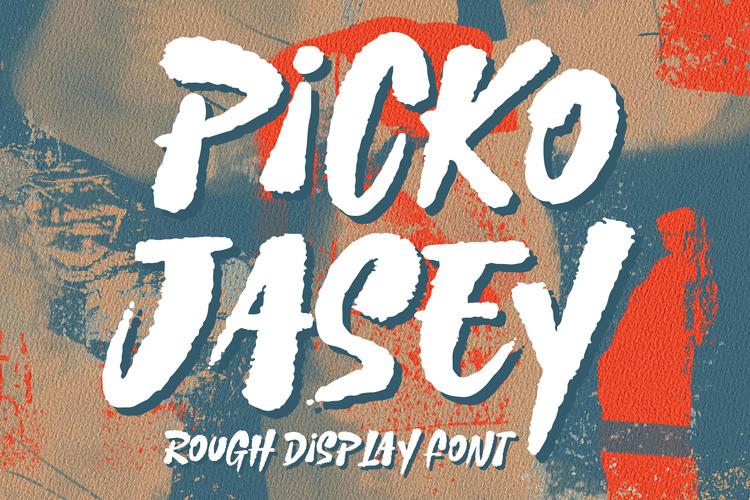
Picko Jasey - Rough Brush Font
Picko Jasey – Rough Brush Font
Rough Brush Font, modern style and dramatic movement that is written casually and quickly. The best for labels,
poster, project designs look modern, authentic and fun.
The best for labels, poster, project designs look modern, authentic and fun. Perfect for a wide range of applications,
from crafting eye-catching headings and dynamic logotypes to bringing energy to quotes, logo, apparel, invitations,
flyers, greeting cards, product packaging, book covers, and printed quotes.
Picko Jasey was designed for personal characters such as strong, confidence, dynamic, readable, Energic, dynamic, etc.